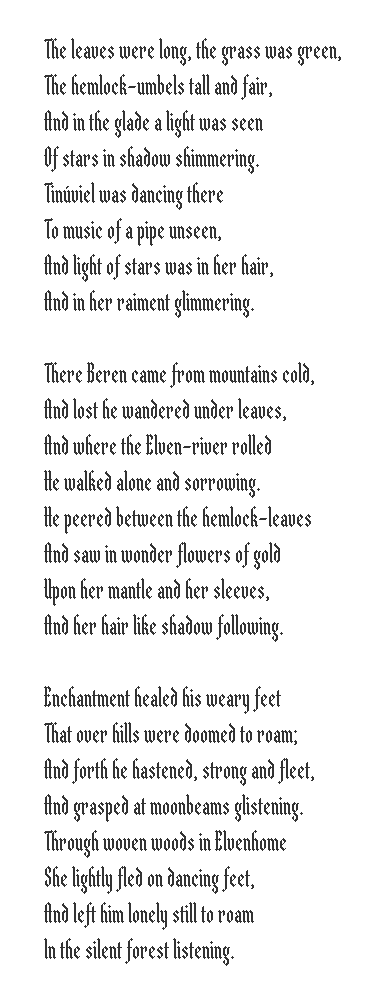
This is a rework of Legolas Pixel. Since most glyphs have been completely redesigned, except the lower case, I thought, it would warrant a new font name. This is a work in progress. I'd like to add some alternate letters, and small caps.
@Frodo7 - Beautiful work here. Who needs Béziers when you have Blocks! :^)
There are very few kerning issues to solve, a pleasant surprise.
Song of Beren and Lúthien (first three verses), Lord of the Rings by J.R.R. Tolkien.
Beautiful use of pixels. Looks good in the sample but also works well at larger size.
Such a delightfully delicate and well balanced work.
This work had a long incubation period; for a pixel font 70 days is long, indeed. It started as a revision of Legolas Pixel. I was not happy with the capitals, and some of the special characters were also in need of a facelift. I've experimented with several versions, including a bold one to finally arrive to the present version. The character set had been vastly extended to support most European languages. As I said before, I keep working on this font, adding alternate characters, and perhaps, small caps and ornaments too.
The text looks gorgeous in this font. How satisfying it must be to know you created this!
I'm a blackletter fan.. this font is great, I absolutely love it
nice ligatures as well
Plainly gorgeous
Great pixel!